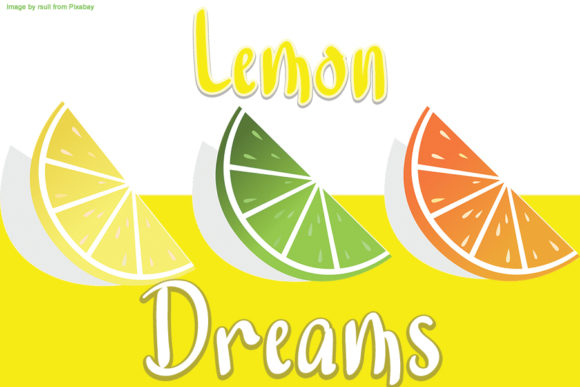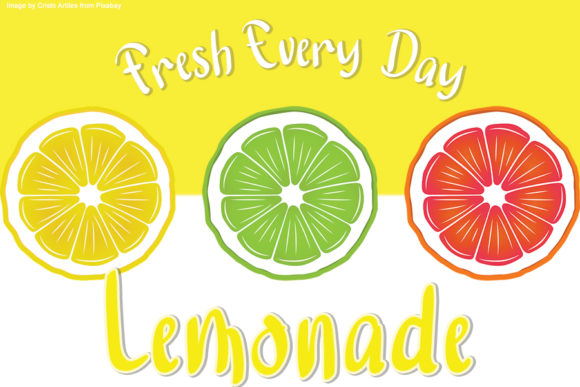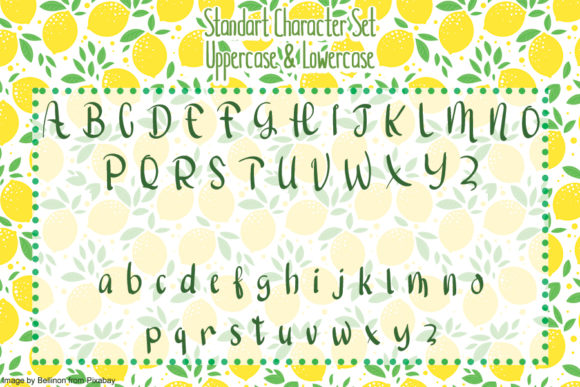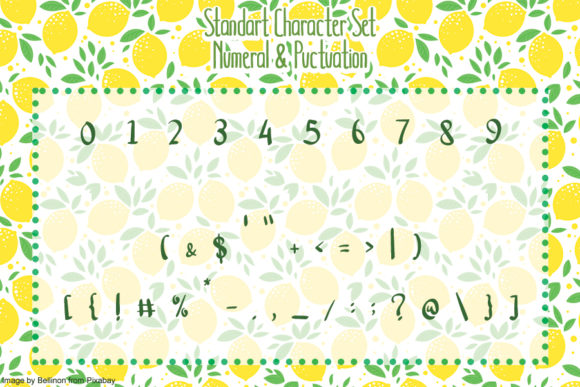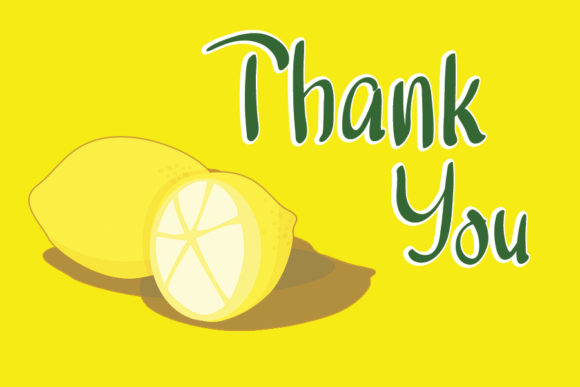
Introducing Healthy Drinks Font: The Perfect Handwritten Font for Your Creative Projects
Are you tired of using the same old fonts for your creative projects? Do you want to add a touch of personality and whimsy to your designs? Look no further than Healthy Drinks Font, a beautiful handwritten font that is sure to become a favorite in your collection. In this article, we’ll take a closer look at Healthy Drinks Font, its features, and how you can use it to take your creative ideas to the next level.
What is Healthy Drinks Font?
Healthy Drinks Font is a carefully handcrafted handwritten font that is designed to add a touch of warmth and personality to your designs. With its unique and playful style, this font is perfect for a wide range of creative projects, from branding and packaging to invitations and social media graphics.
Features of Healthy Drinks Font
So, what makes Healthy Drinks Font so special? Here are just a few of its key features:
- Handwritten style: Healthy Drinks Font is a true handwritten font, carefully crafted to mimic the look and feel of handwriting. This gives it a warm and personal touch that is perfect for adding a human element to your designs.
- Cute and playful: This font is designed to be fun and playful, making it perfect for projects that require a lighthearted and whimsical touch.
- High-quality design: Healthy Drinks Font is expertly designed to ensure that it looks great in any context. Whether you’re using it for a large headline or a small caption, this font is sure to impress.
- Versatile: This font is suitable for a wide range of creative projects, from digital designs to print materials.
How to Use Healthy Drinks Font
So, how can you use Healthy Drinks Font in your creative projects? Here are a few ideas to get you started:
- Branding and packaging: Use Healthy Drinks Font to add a personal touch to your brand’s packaging and marketing materials.
- Invitations and events: This font is perfect for creating invitations, party decorations, and other event materials that require a playful and whimsical touch.
- Social media graphics: Use Healthy Drinks Font to create eye-catching social media graphics that will help your brand stand out.
- Blog and website design: Add a touch of personality to your blog or website with Healthy Drinks Font, perfect for headings, titles, and other design elements.
Tips for Getting the Most Out of Healthy Drinks Font
To get the most out of Healthy Drinks Font, here are a few tips to keep in mind:
- Experiment with different sizes and colors: Don’t be afraid to try out different sizes and colors with Healthy Drinks Font. This will help you find the perfect combination for your design.
- Mix and match with other fonts: Healthy Drinks Font pairs well with a wide range of other fonts. Experiment with different combinations to find the perfect look for your design.
- Use it consistently: To get the most out of Healthy Drinks Font, use it consistently across your design. This will help create a cohesive look and feel that will make your design stand out.
In conclusion, Healthy Drinks Font is a beautiful handwritten font that is perfect for adding a touch of personality and whimsy to your creative projects. With its unique and playful style, high-quality design, and versatility, this font is sure to become a favorite in your collection. Whether you’re a designer, crafter, or DIY enthusiast, Healthy Drinks Font is a great choice for any project that requires a little extra something special.